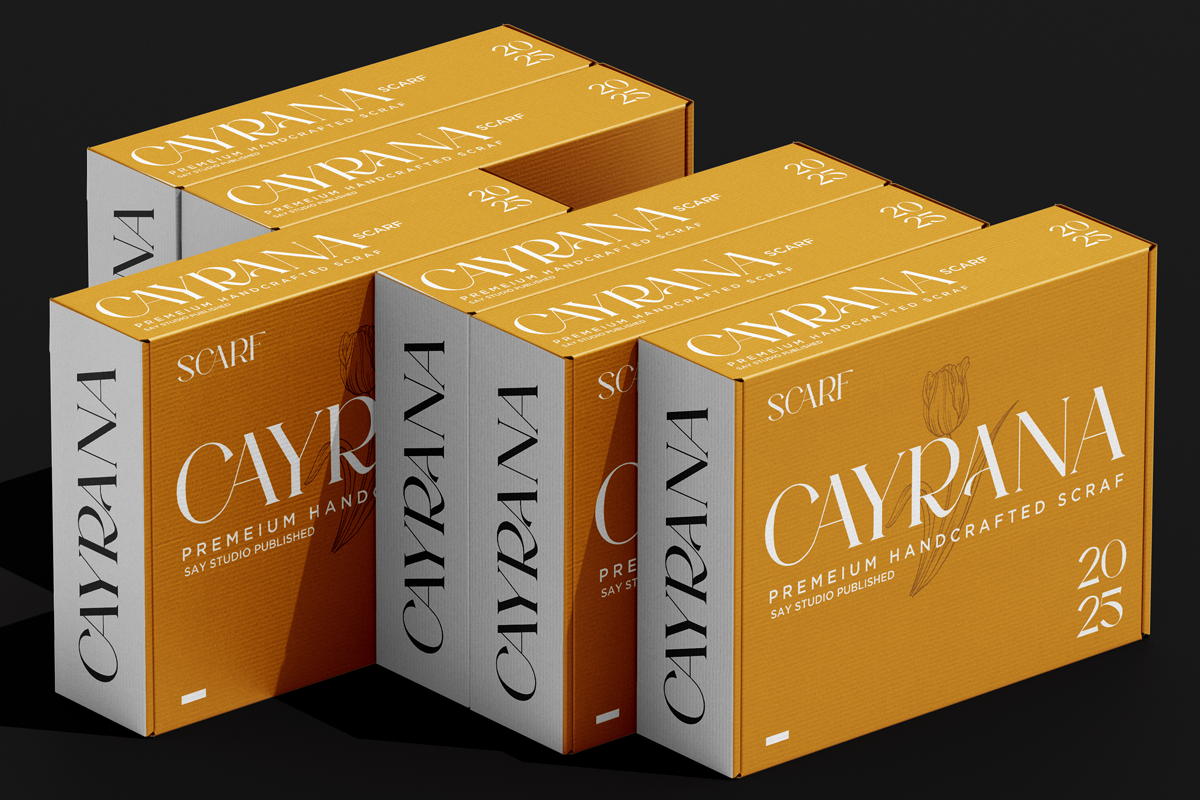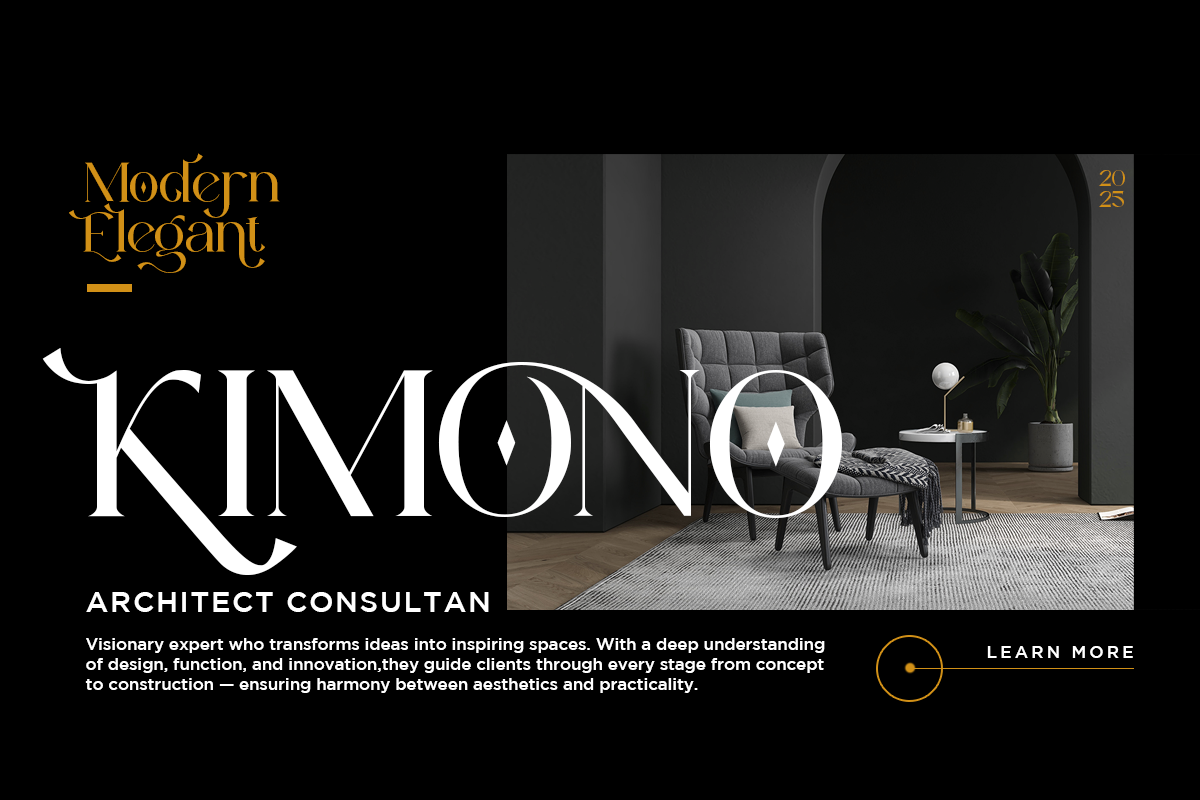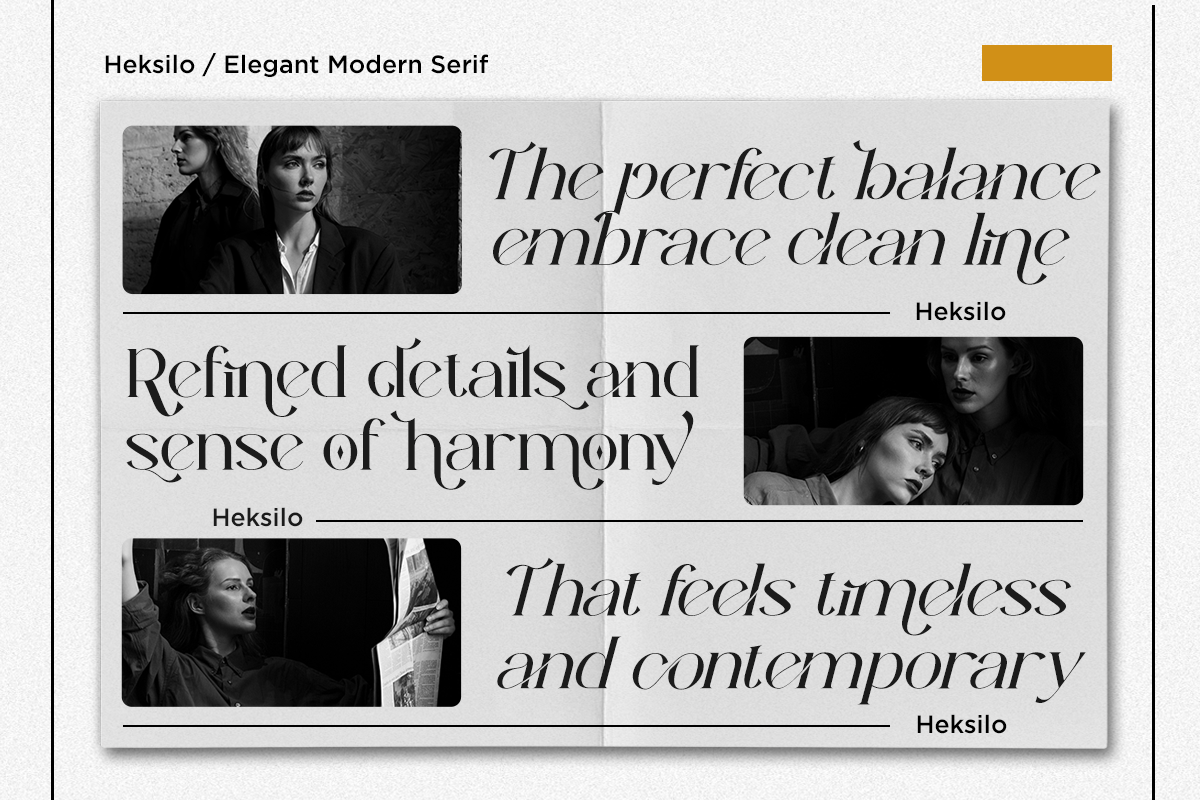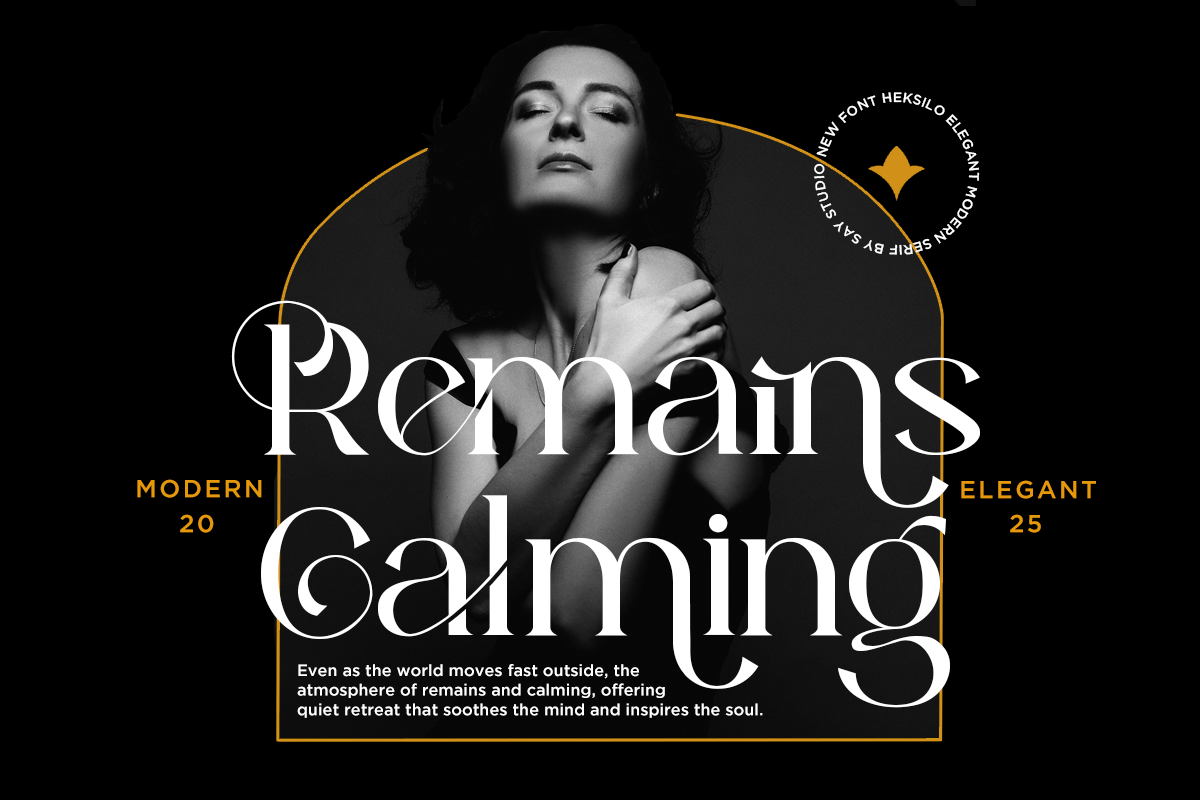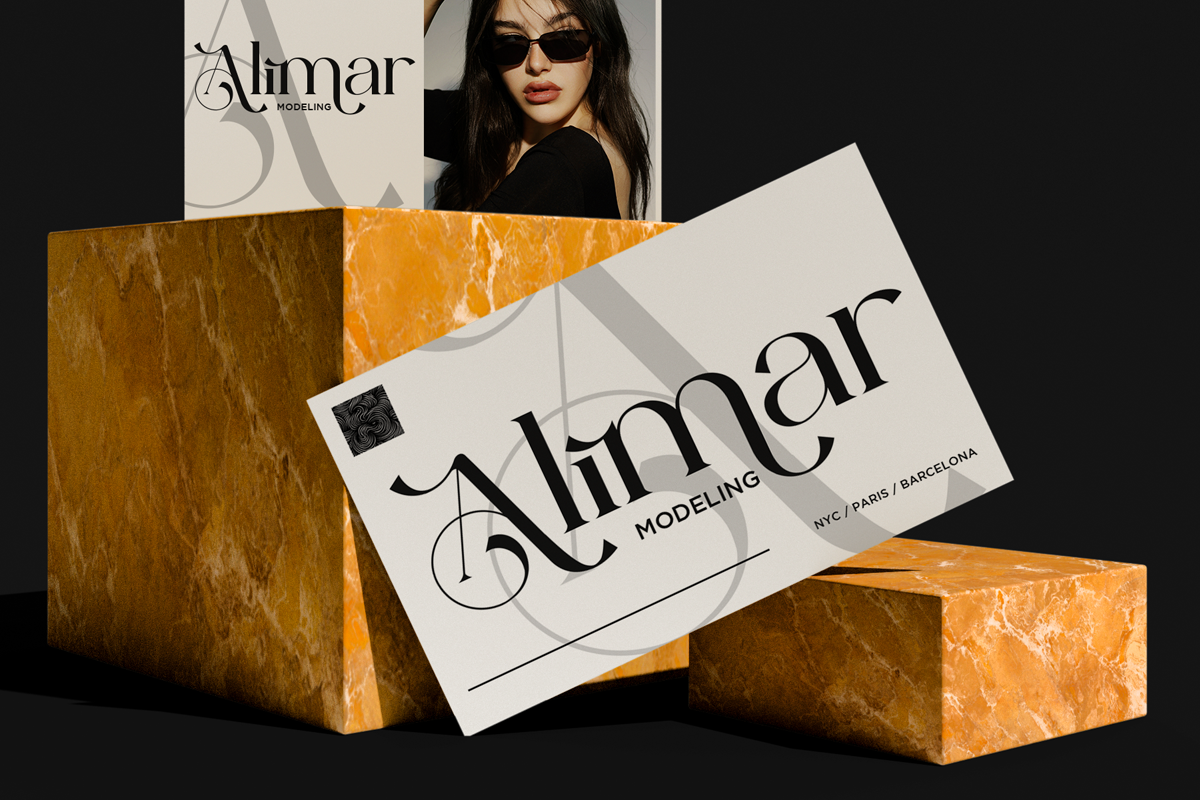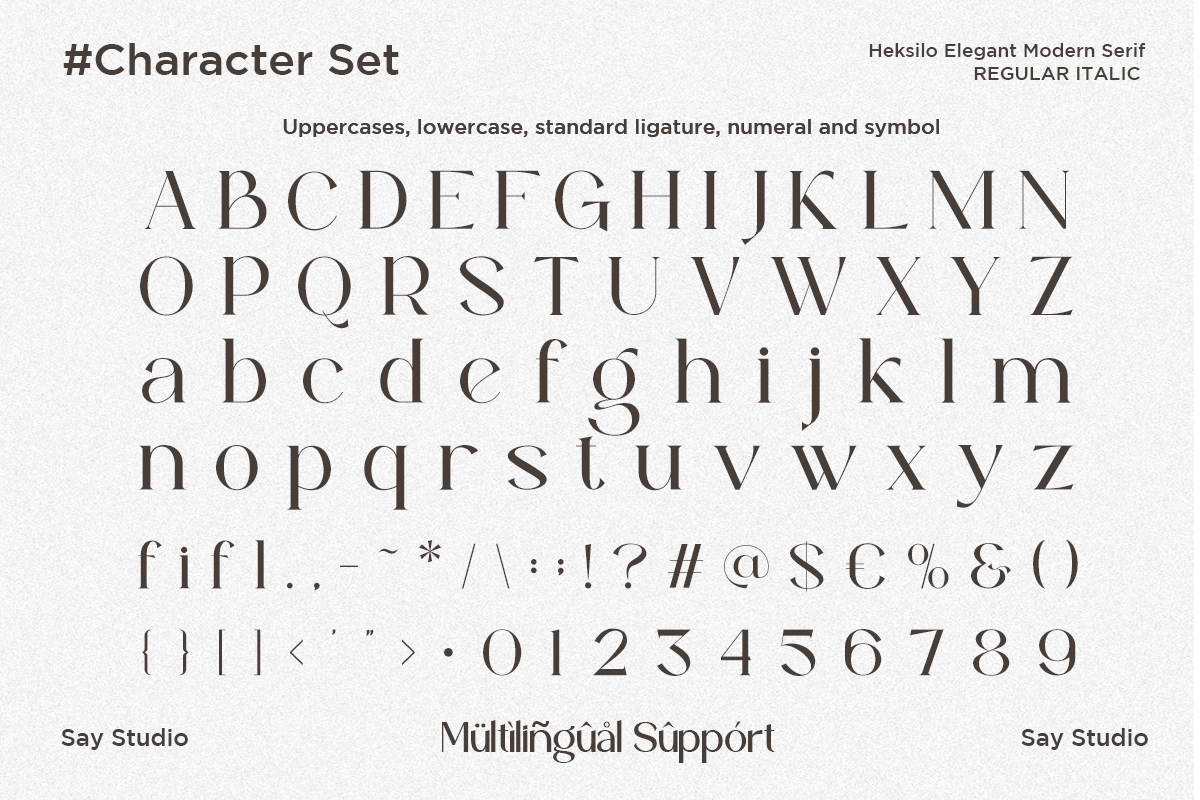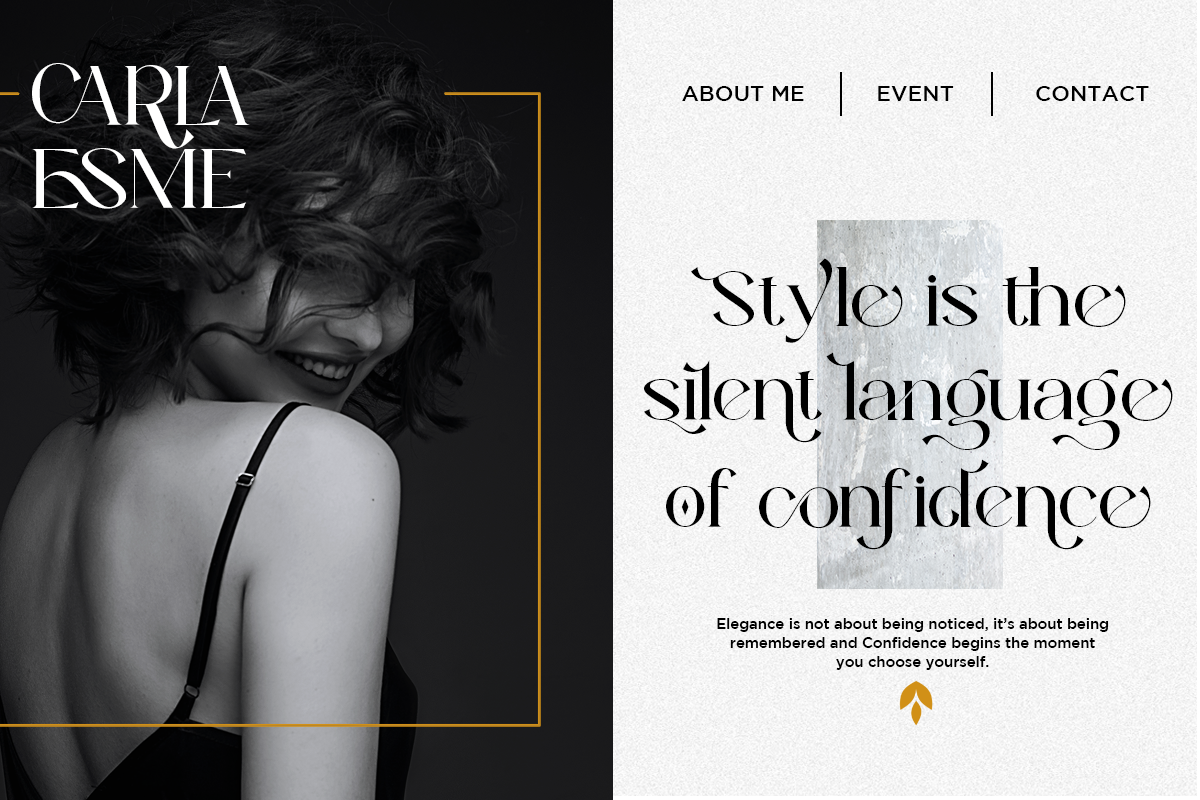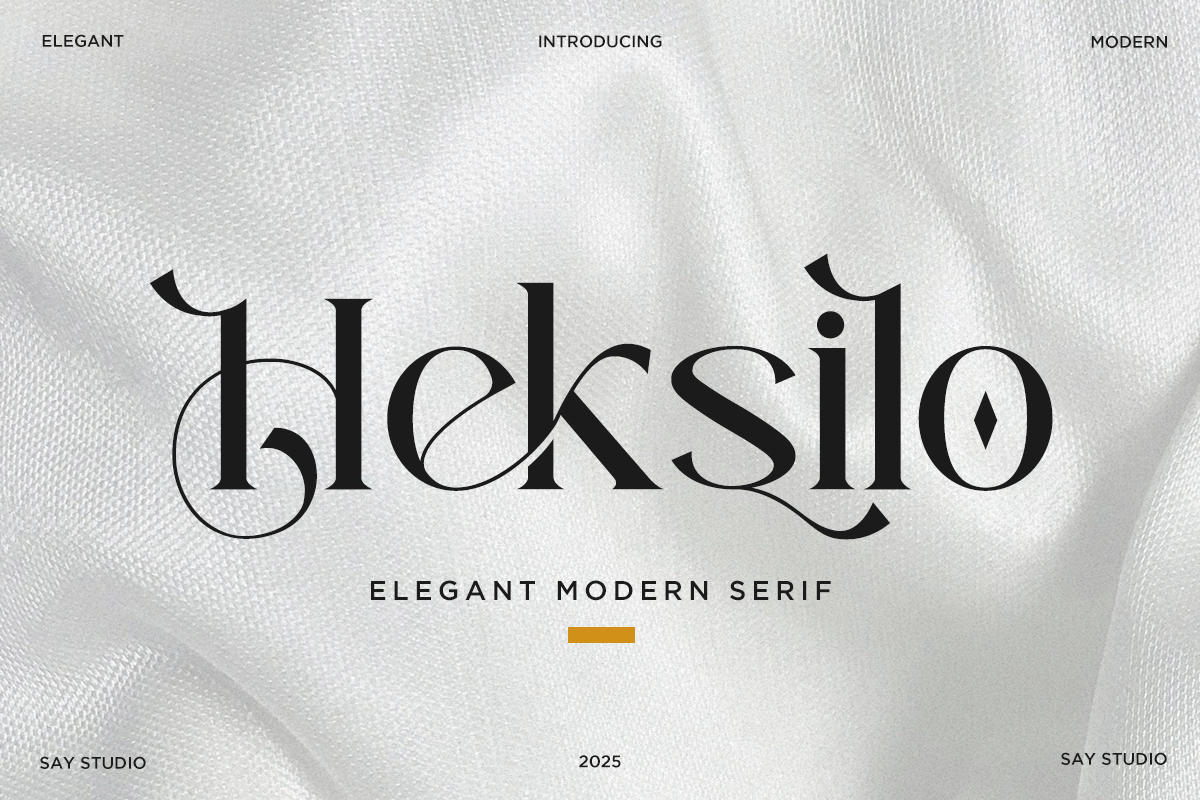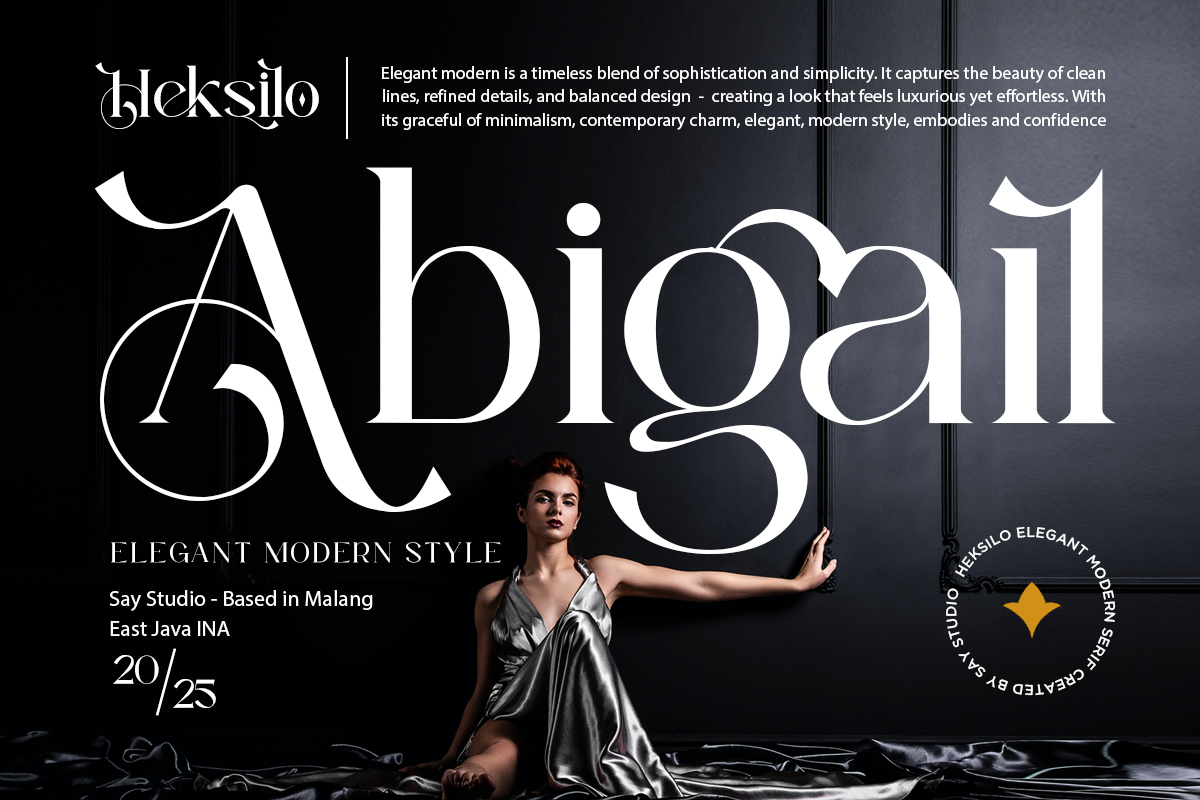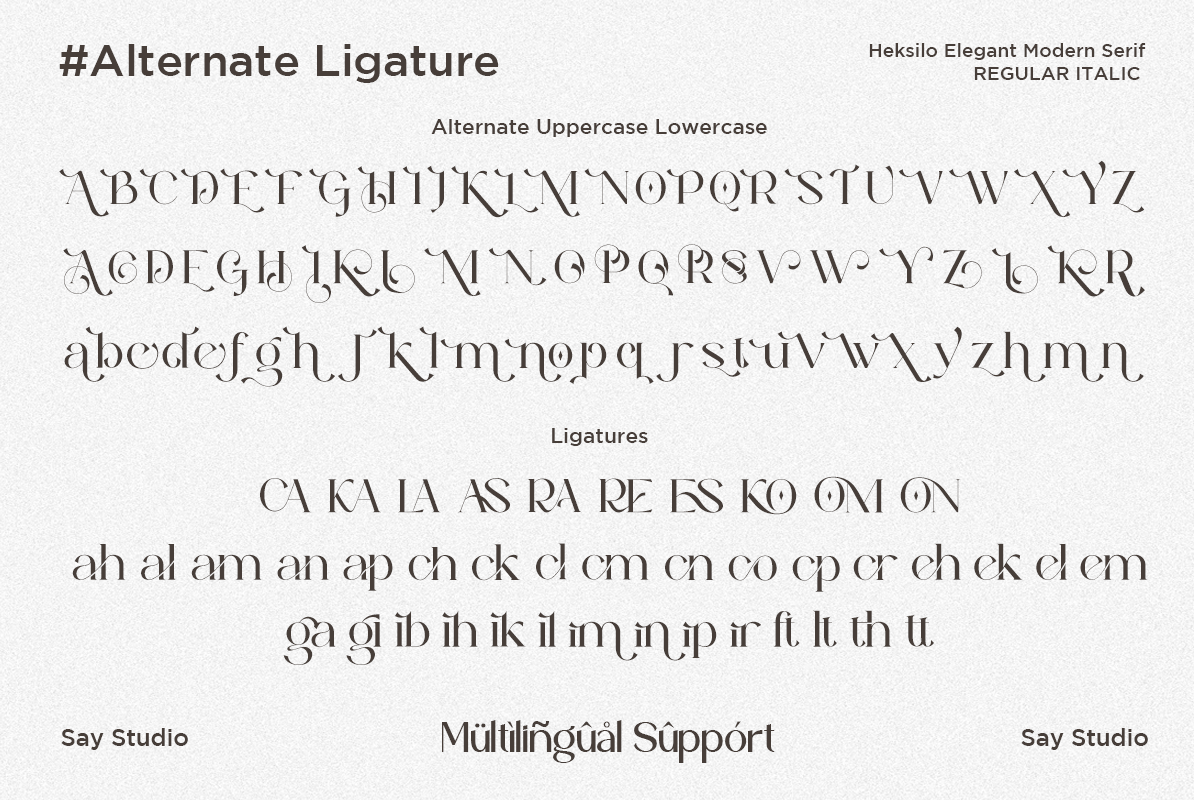
Heksilo - Luxury Serif Font
Heksilo is an elegant modern serif typeface that combines refined sophistication with contemporary minimalism. Designed with graceful curves, stylish ligatures, and distinctive alternates, Heksilo delivers a luxurious visual identity while maintaining exceptional readability. Its harmonious proportions and timeless character make it an excellent choice for designers seeking premium typography with a modern aesthetic.
Crafted for versatile creative applications, Heksilo is perfect for luxury branding, fashion campaigns, editorial layouts, cosmetic packaging, jewelry brands, architecture studios, hotels, restaurants, websites, social media, and premium product presentations. Featuring multilingual support, OpenType ligatures, stylistic alternates, numerals, and complete punctuation, Heksilo provides everything needed to build elegant and memorable visual identities across print and digital media.
Whether you're creating sophisticated logos, editorial headlines, luxury packaging, fashion lookbooks, branding systems, or premium marketing materials, Heksilo delivers timeless elegance with contemporary functionality. Its refined details and high-end appearance make it the perfect serif typeface for designers who want to create distinctive, luxurious, and unforgettable designs.
Regular and Italic
Stylistic Ligature
Number, Symbol, and Punctuation
Multi Language Support